👹 Demonic Font Generator 👹
🔥 Summon terrifying text with dark fonts, cursed effects, and demonic symbols! Perfect for horror content, Halloween, and dark themes! 💀
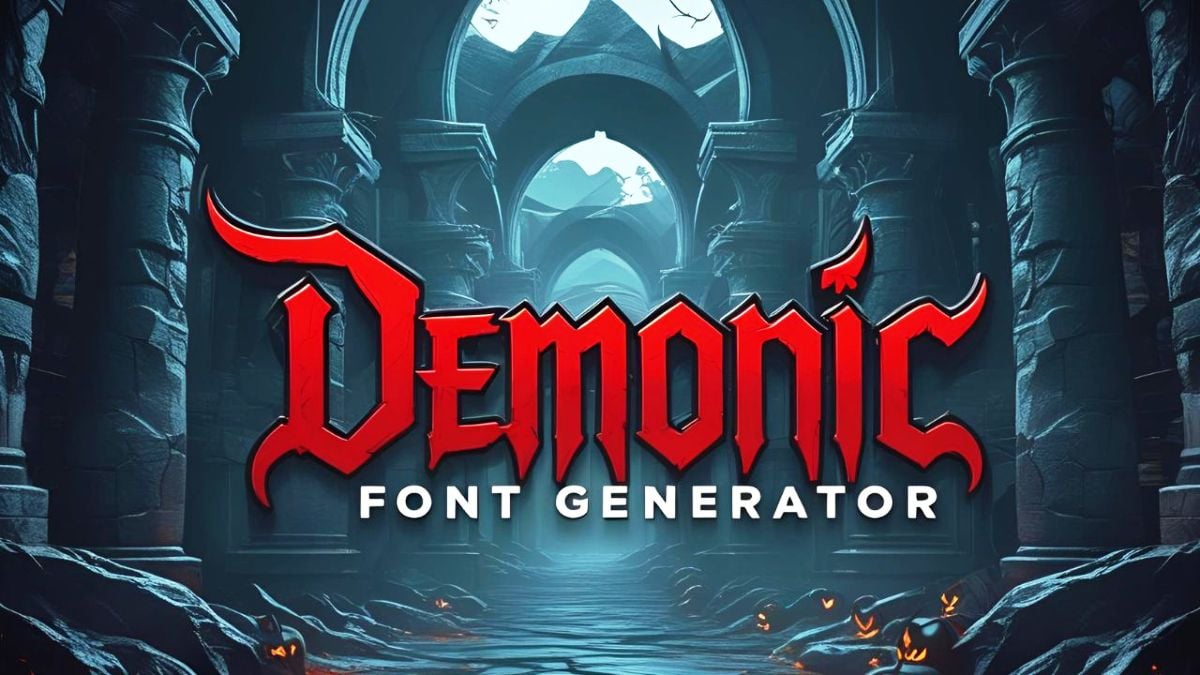
Craft infernal, high‑contrast titles with a sinister edge. Preview demonic styles in your browser, then download the matching font pack to use in Photoshop, Illustrator, Premiere Pro, Canva, and more.
What Makes a Demonic Typeface Stand Out
- Cinematic impact: jagged serifs, heavy contrast, occult flair perfect for thumbnails and posters.
- Dark‑UI ready: reads crisply on black with subtle glows, blood‑red accents, and void shadows.
- Fast creative flow: preview effects in the generator, then export assets with confidence.
- Versatile themes: great for horror channels, gaming overlays, music cover art, and stream interludes.
How to Use the Demonic Font Generator
- Type your headline and choose a demonic/gothic variant that fits your concept.
- Tune size, letter spacing (1–3px), and line height for bold readability.
- Test effects like “Blood Glow”, “Crimson Aura”, or “Void Shadow” for mood.
Font Pairing Ideas for Infernal Titles
- Gothic title + geometric sans subtitle: Pair with Montserrat, Inter, or Bebas Neue for hierarchy.
- Monospace contrast: Use Roboto Mono/JetBrains Mono for ritual “system” notes and captions.
- Grunge script accents: Sparingly add a brush script for blood‑smeared callouts.
Design Tips for a Demonic, High‑Impact Look
- Contrast first: Pale text on near‑black, with a subtle red outer glow for readability.
- Texture: Add film grain, ash, or ink splatter overlays to reinforce atmosphere.
- Hierarchy: Keep long paragraphs in a clean sans; reserve distressed forms for short titles.
- Spacing: Slightly increase tracking at large sizes to avoid letter crowding.